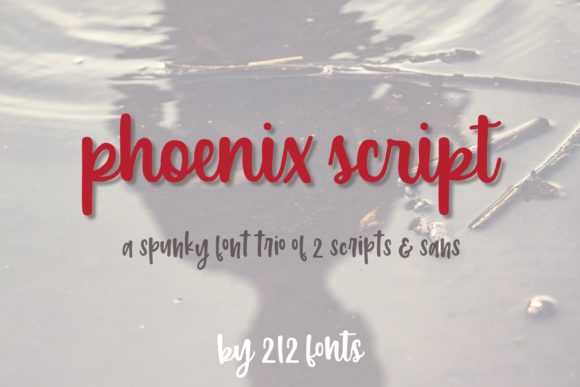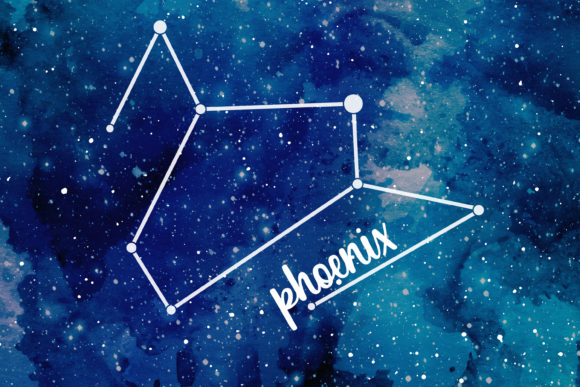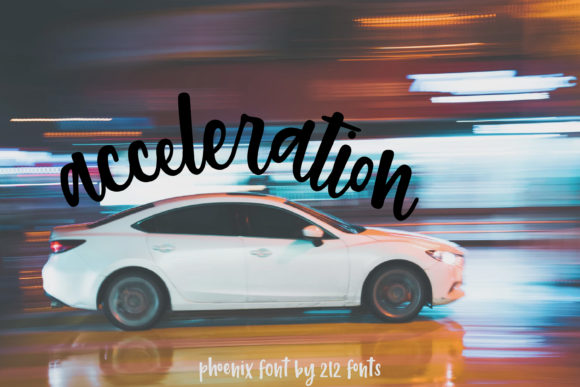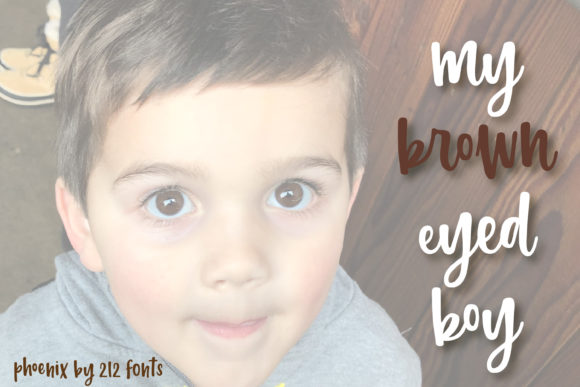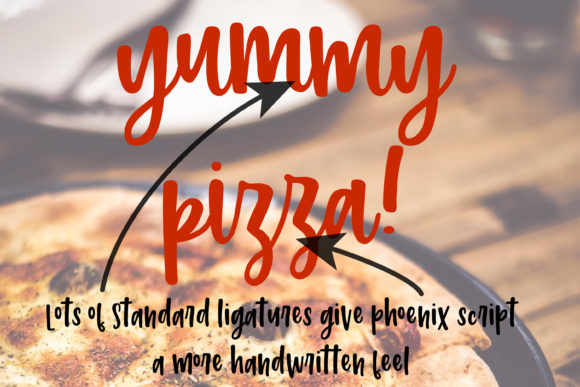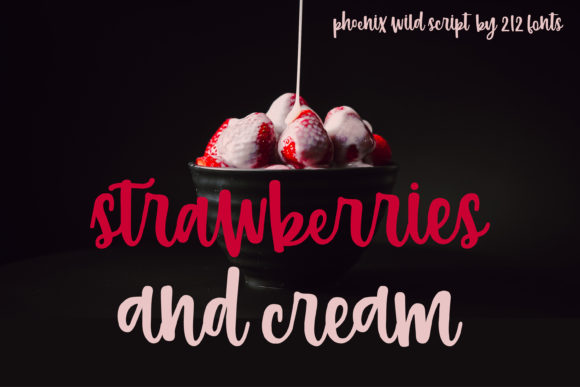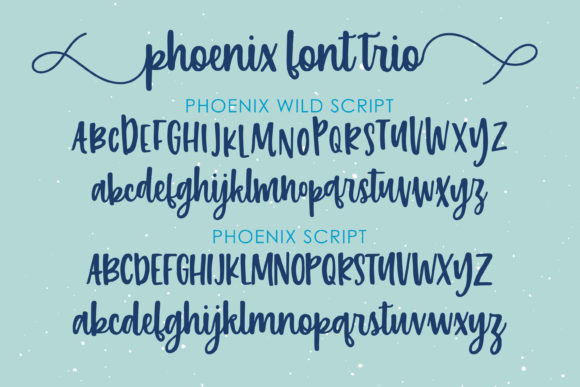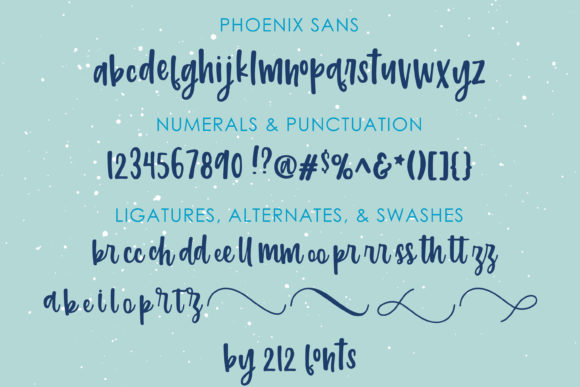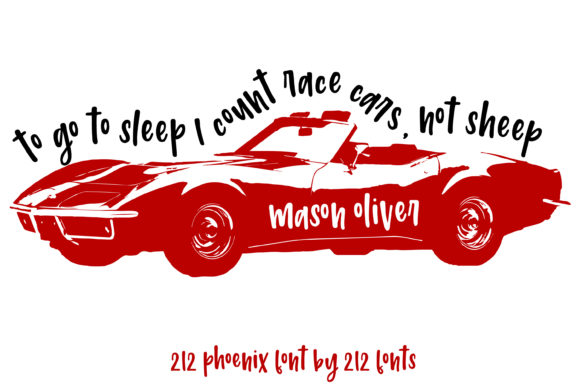
Phoenix Script Trio Font
About Phoenix Script Trio Font
Phoenix Script is an amazing font trio, consisting of thre,e one-of-a-kind fonts!
Get inspired by these amazing handwritten fonts!